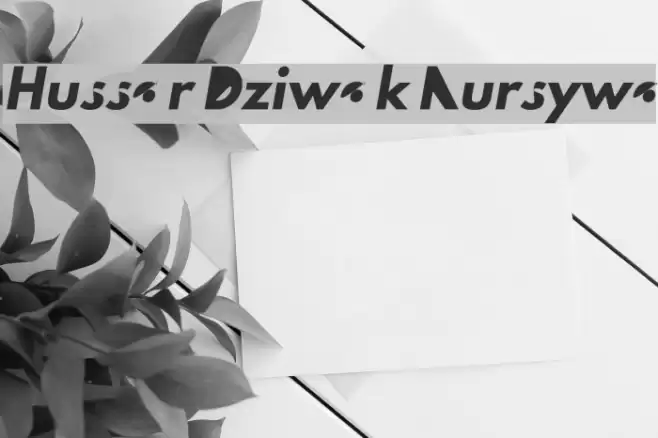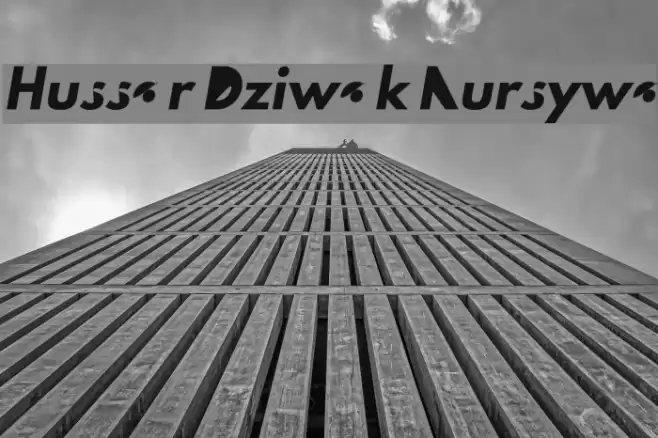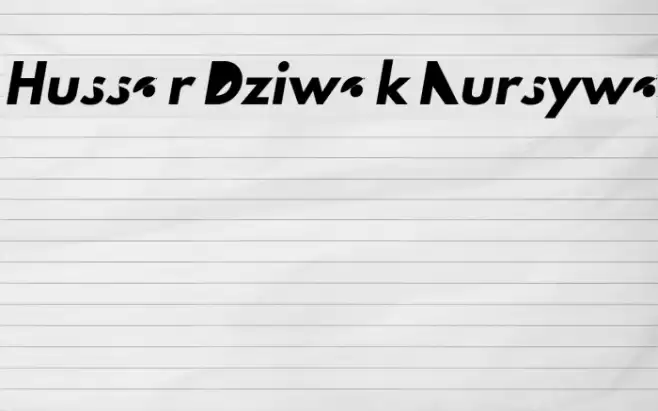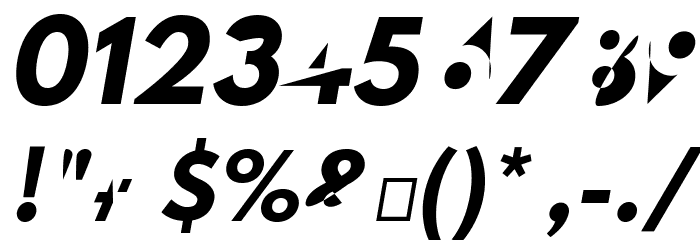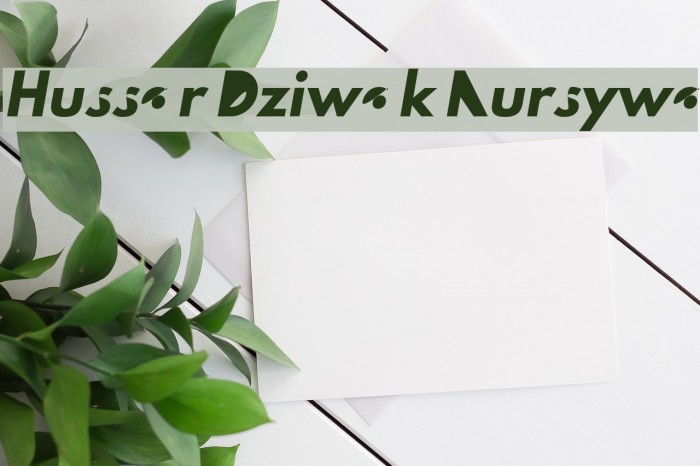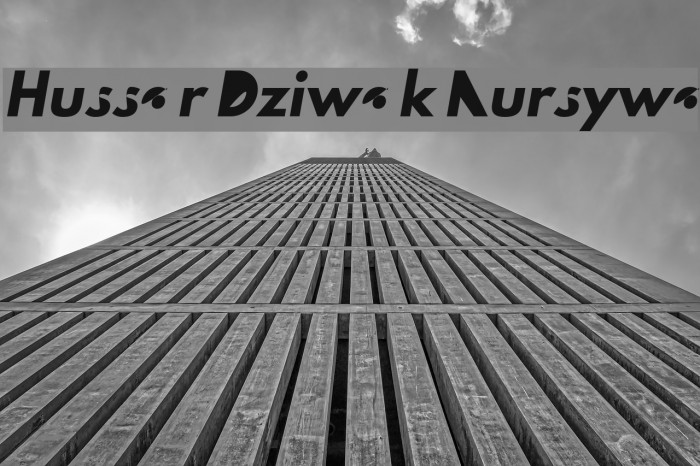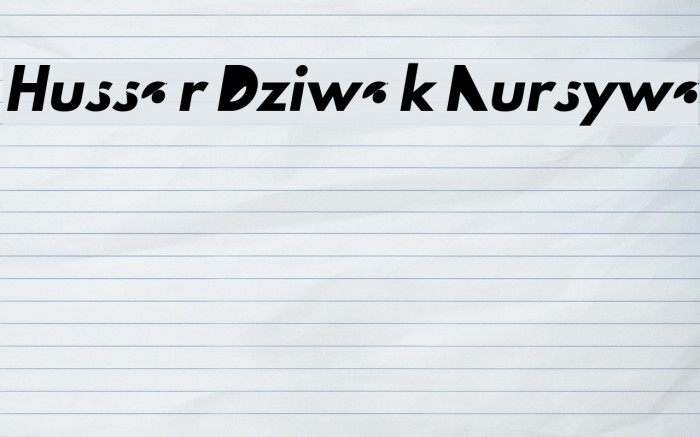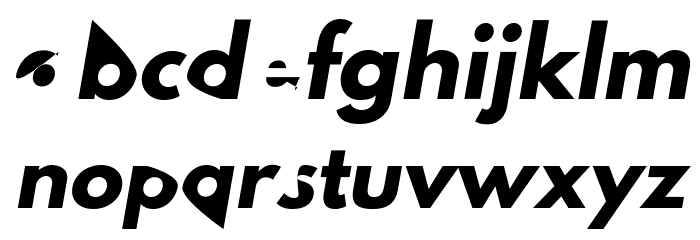
Hussar Dziwak Kursywa
This font features a bold and dynamic style with a distinct slant, giving it a sense of motion and energy. The uppercase letters are robust and angular, with unique geometric shapes that add a modern flair. The lowercase letters maintain a consistent style, with rounded edges that contrast the sharpness of the uppercase. Numbers and special characters follow the same bold and slanted design, ensuring uniformity across all elements. The font's strong presence makes it ideal for attention-grabbing designs.
A bold, slanted font with a modern, geometric style.
- Proposed Projects: Ideal for branding, posters, headlines, and any project requiring a bold, modern aesthetic.
- Use Case: Headlines, Logos, Posters